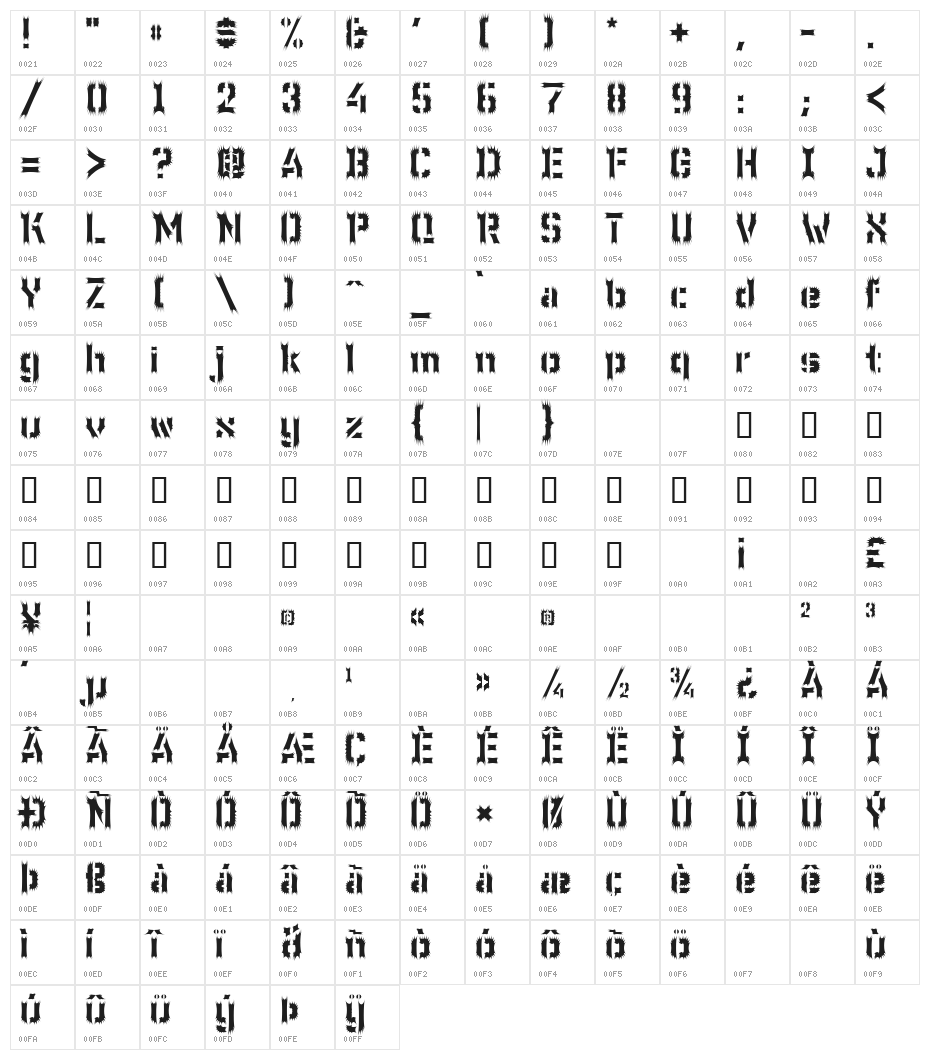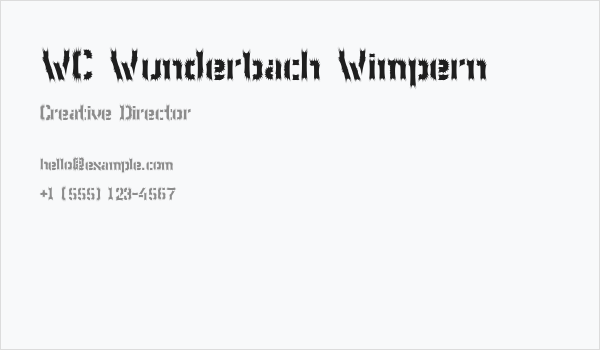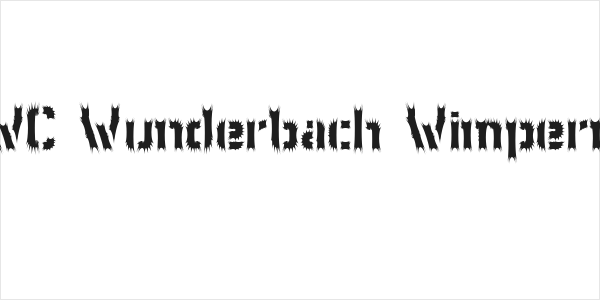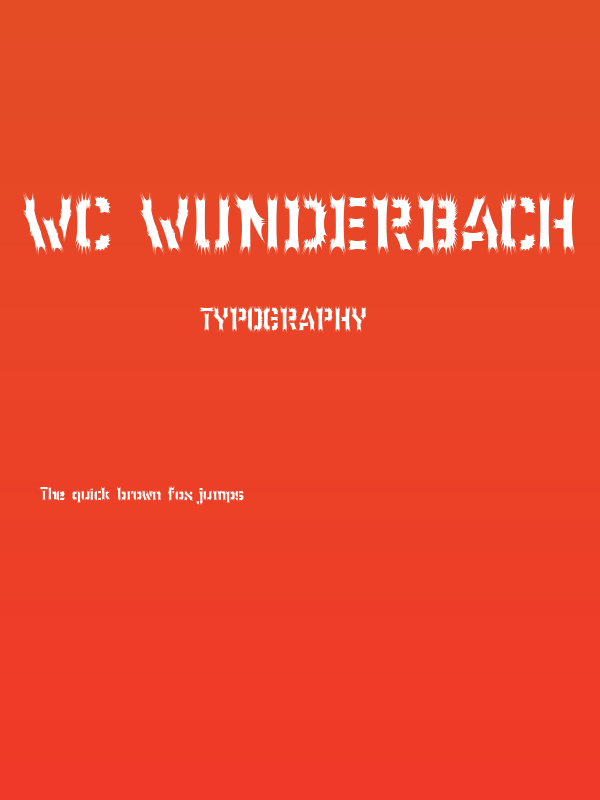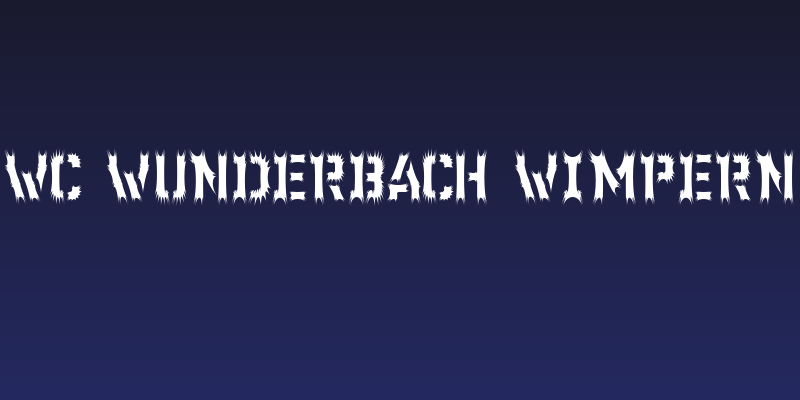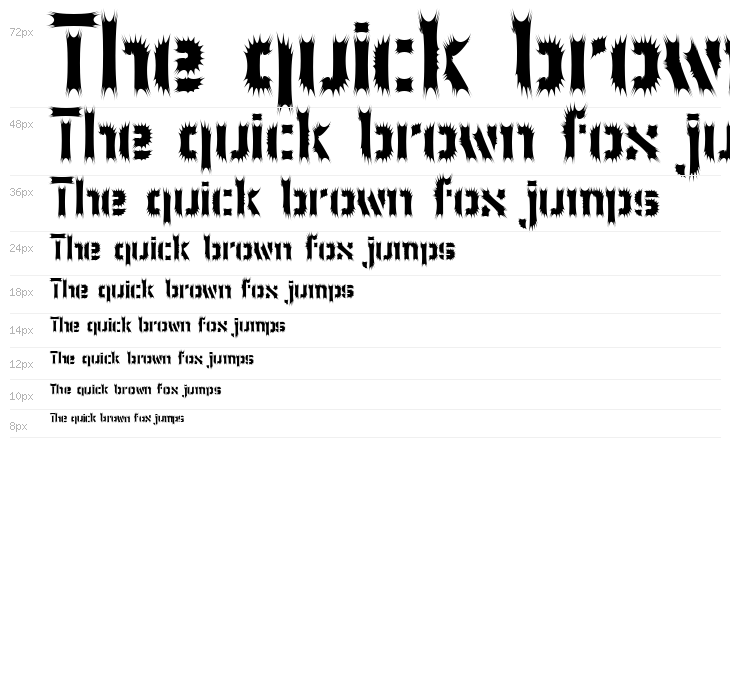
WC Wunderbach Wimpern Font
WC Wunderbach Wimpern Description
This font features a bold and dramatic style with sharp, jagged edges that resemble spikes or thorns. The characters are highly decorative, creating a sense of movement and energy. Each letterform is unique, with varying lengths of spikes that give it a wild and untamed appearance. The font is designed to capture attention and convey a sense of intensity and edginess. Its distinct and unconventional design makes it suitable for projects that require a strong visual impact.
| Proposed Projects | Ideal for album covers, horror-themed posters, edgy branding, and event flyers. |